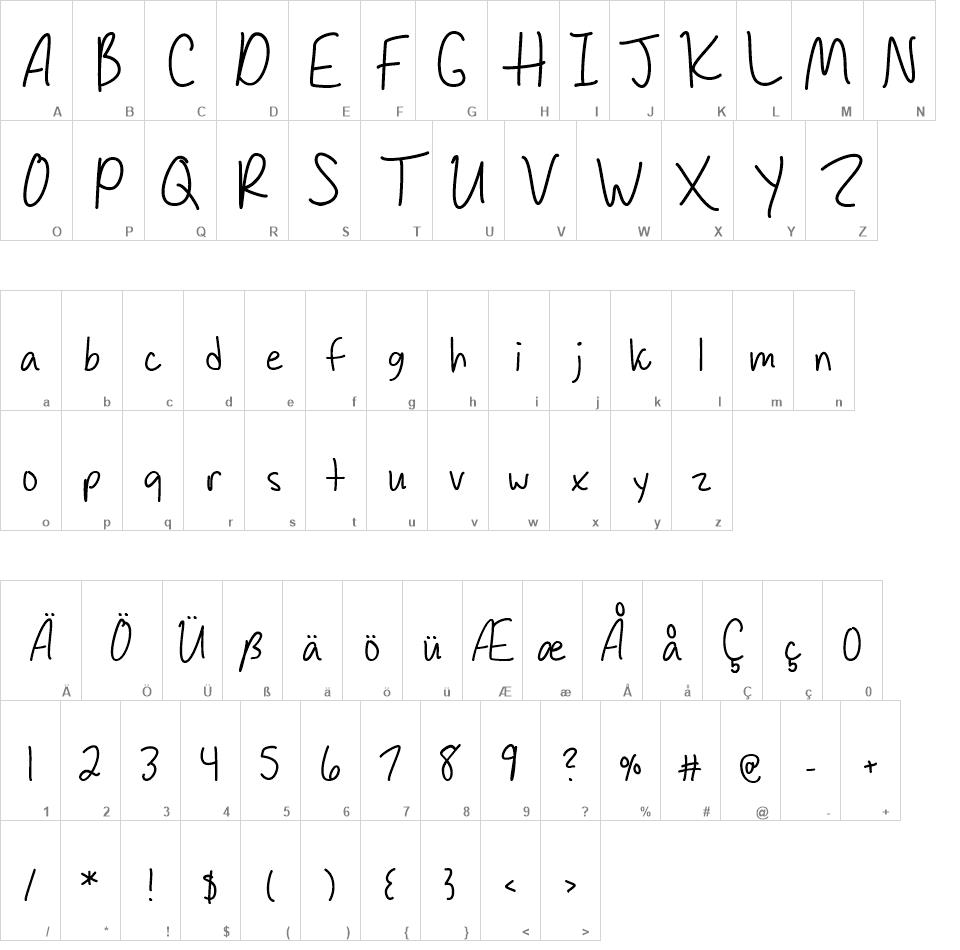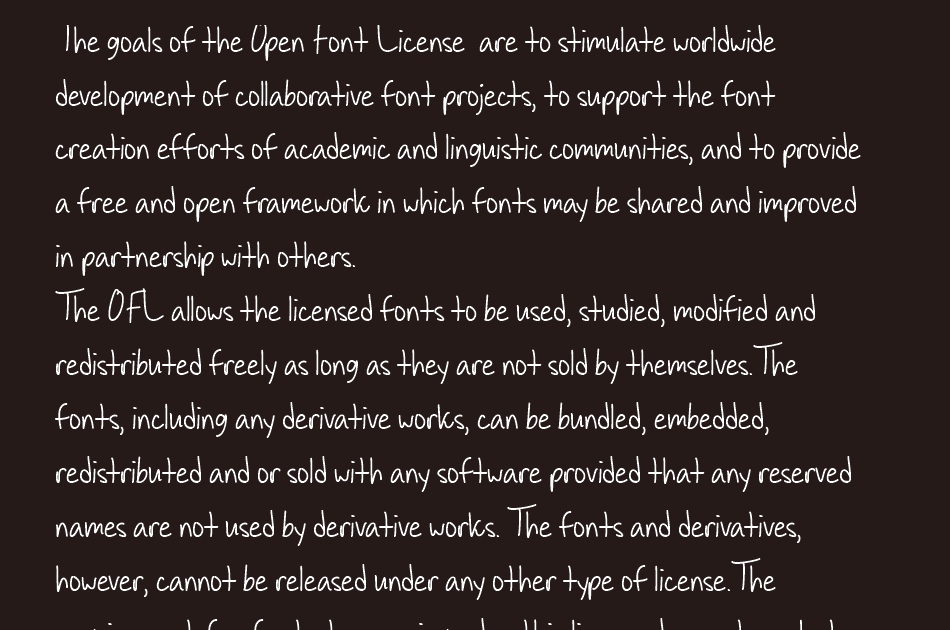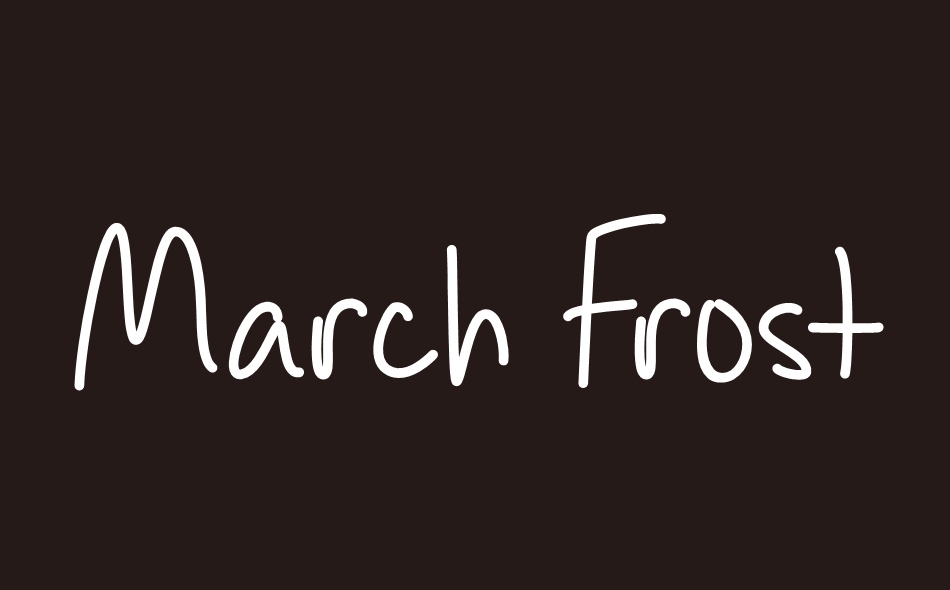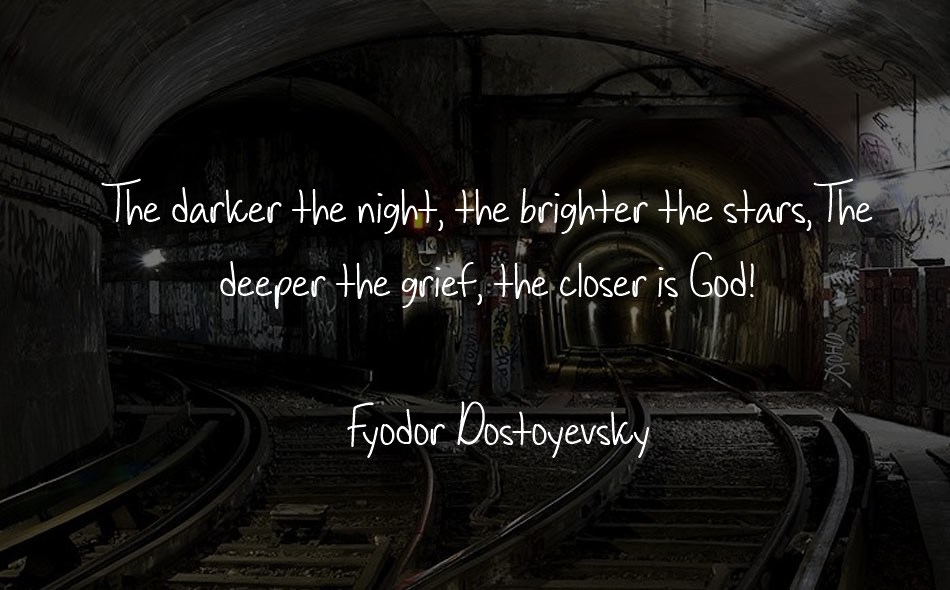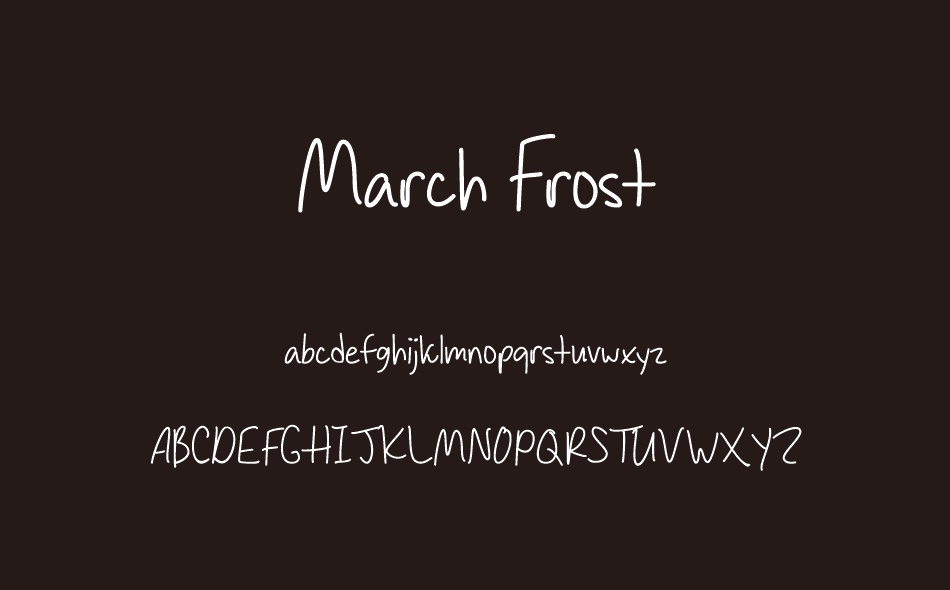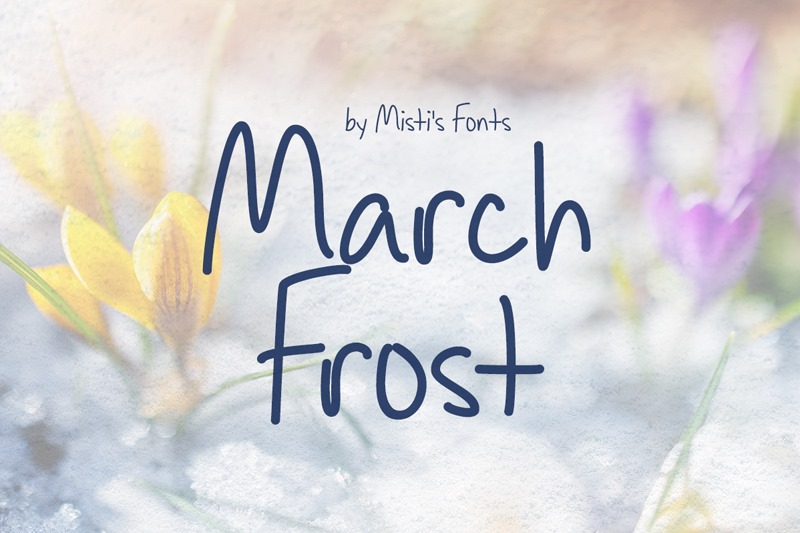
March Frost font
March Frost is a natural handwritten typeface that was carefully handcrafted to add a unique and whimsical touch to your designs. Use it to create stand-out logos and banners for your website or Etsy Shop, lovely greeting cards, social media graphics, and anything else you can imagine.